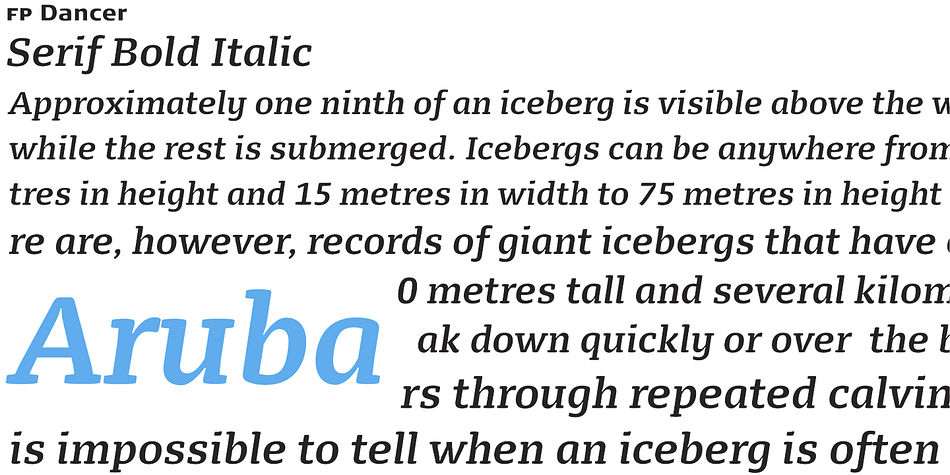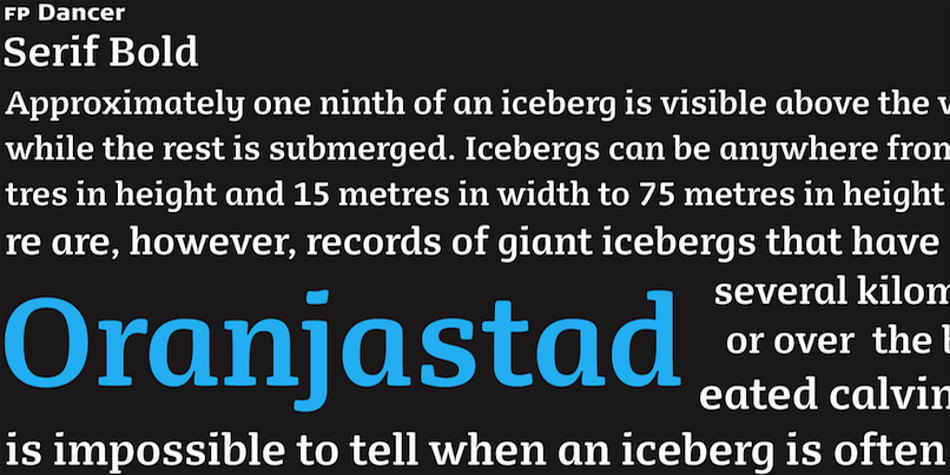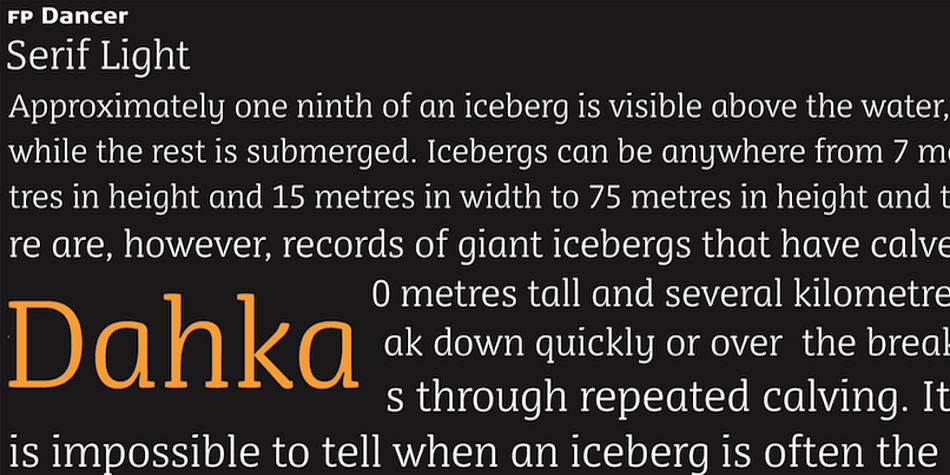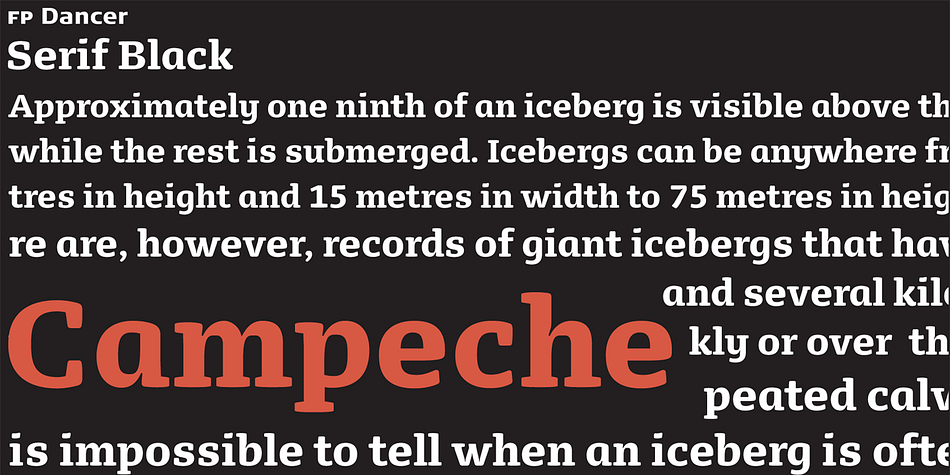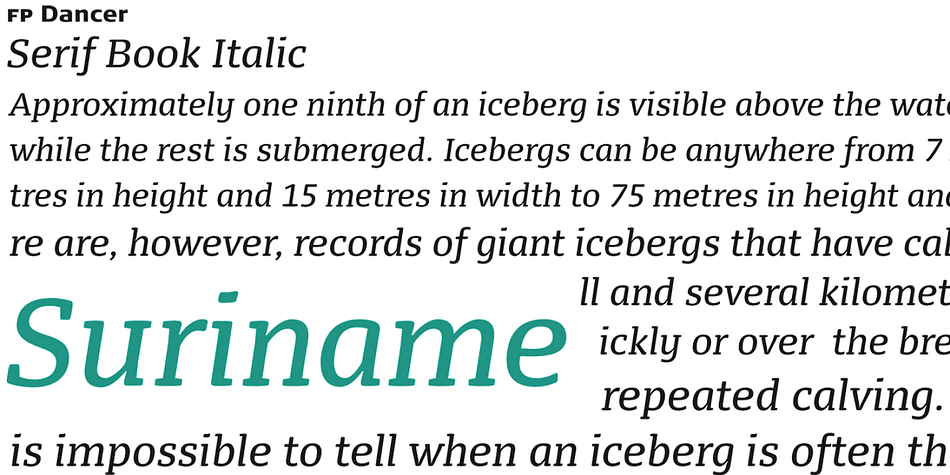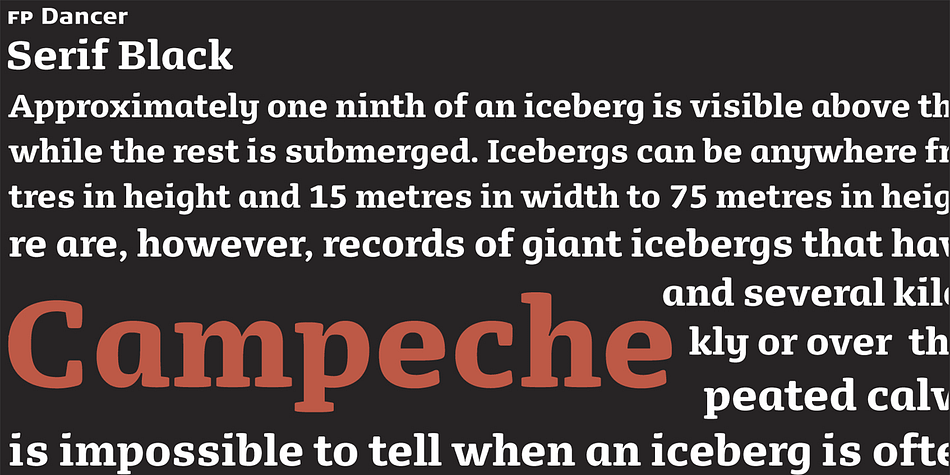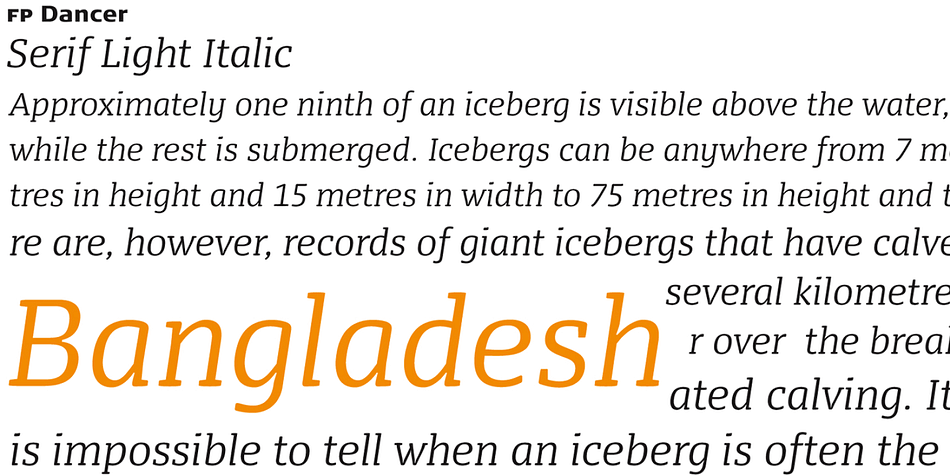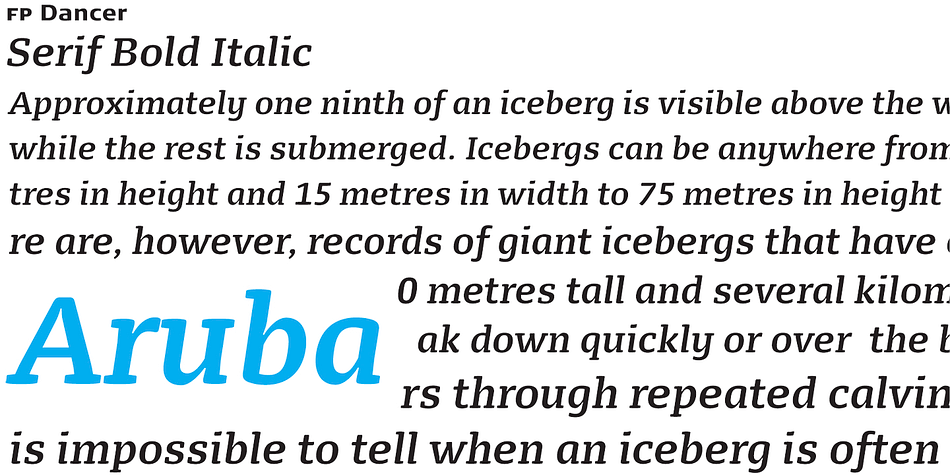
Designed by Morten Rostgaard Olsen, FP Dancer Serif is a slab serif font family. This typeface has eight styles and was published by Fontpartners.
FP Dancer Serif attempts to combine a constructed face with an upright script face. The goal was a type family that combines softness and friendliness with more strength.
Typographica.org selected this font as one of the best typefaces for 2007.
Foundry | Fontpartners |
Designer | Morten Rostgaard Olsen |